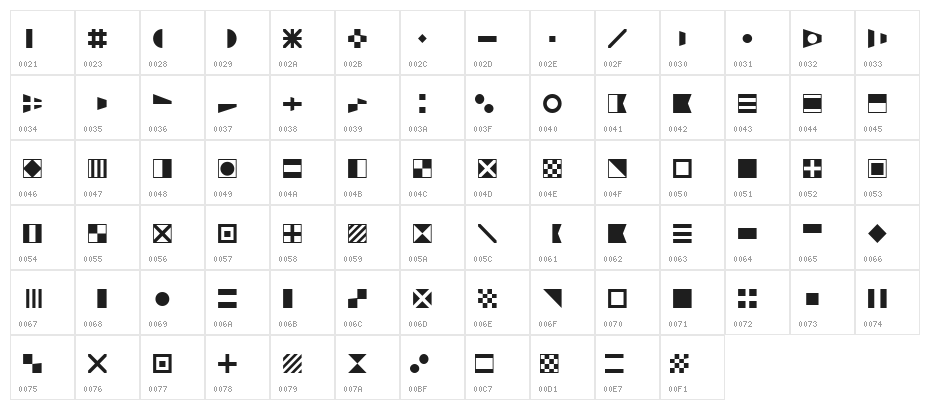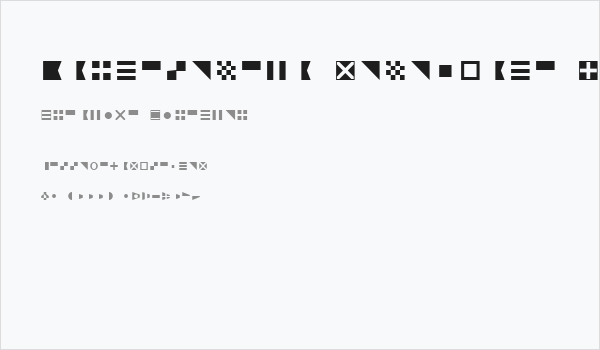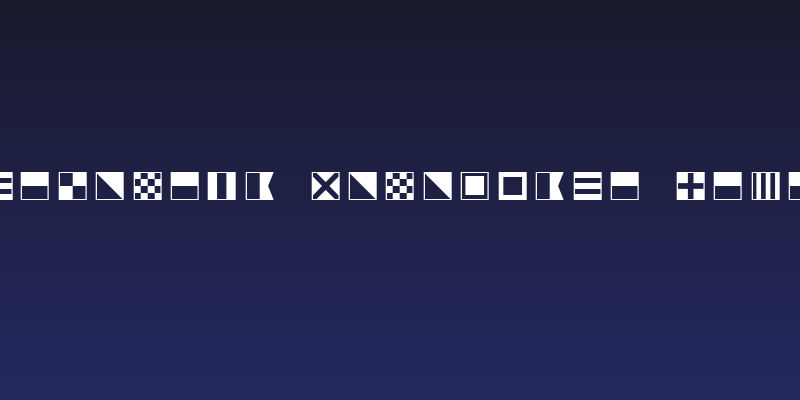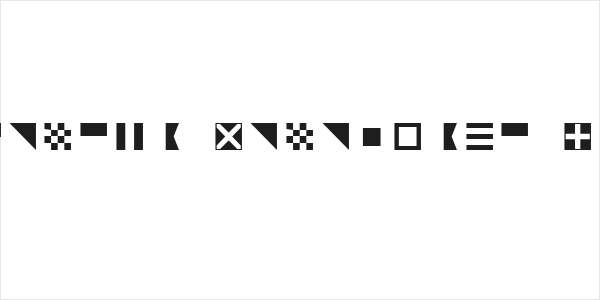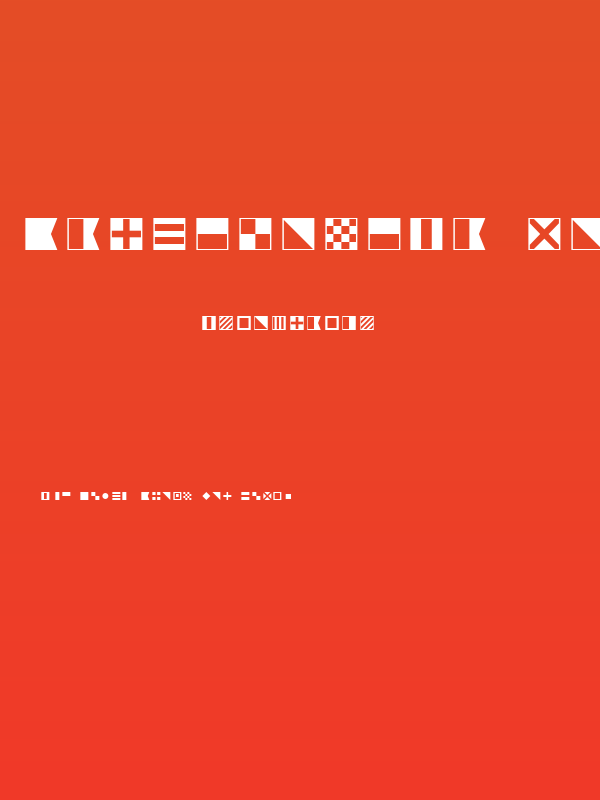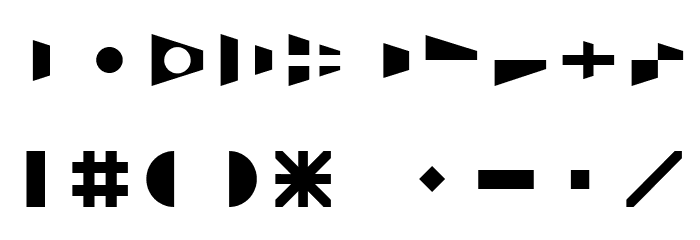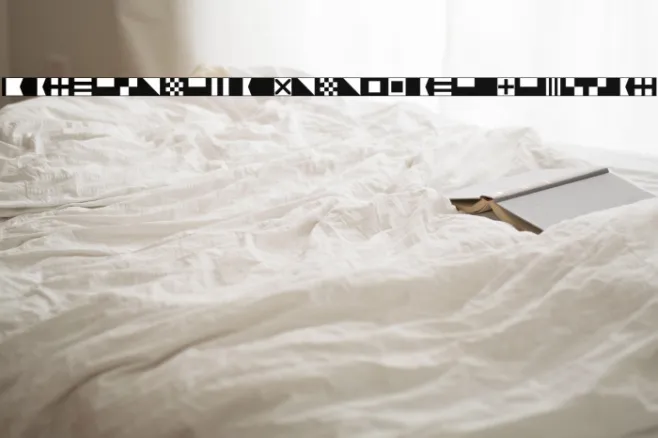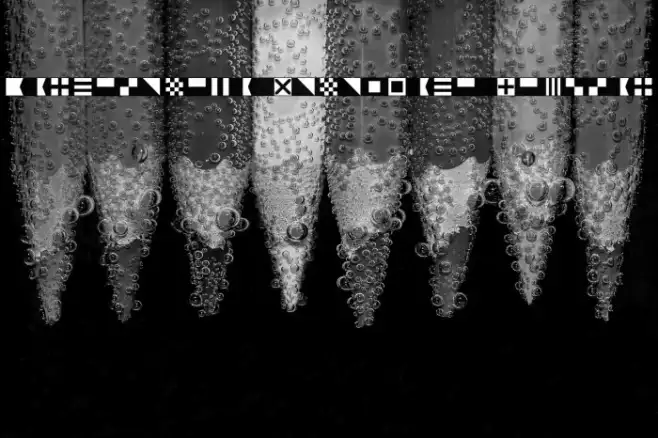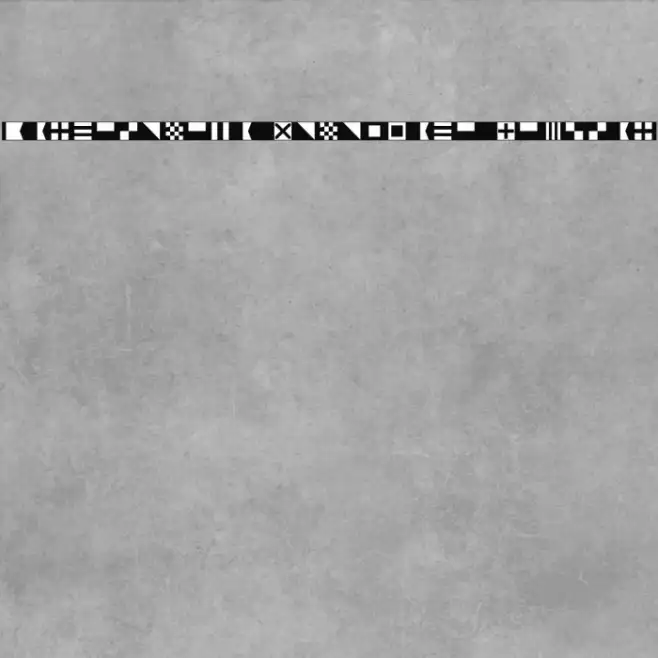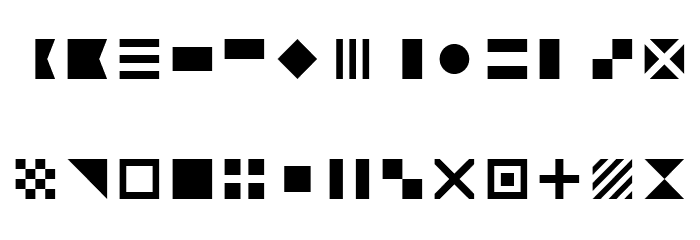
Barceloneta Monospace Regular Font
Barceloneta Monospace Regular Description
This design features a collection of geometric shapes and symbols, each enclosed within a square or standalone, creating a bold and abstract visual language. The elements include a variety of patterns such as stripes, checks, and solid fills, with a consistent use of black and white contrast. The design is reminiscent of modern art or abstract iconography, with each symbol maintaining a uniform size and alignment. The overall appearance is striking and visually engaging, making it suitable for projects that require a contemporary and artistic touch.
| Use Case | Logos, Art installations, Digital interfaces |
| Proposed Projects | Ideal for modern art installations, abstract branding, or contemporary digital interfaces. |